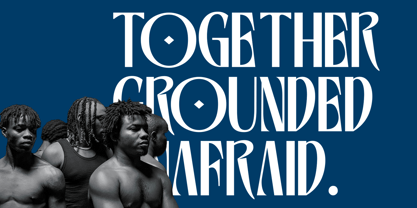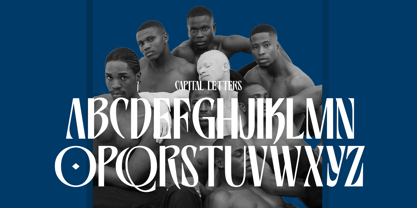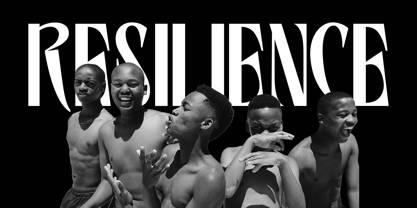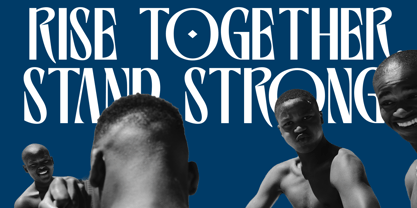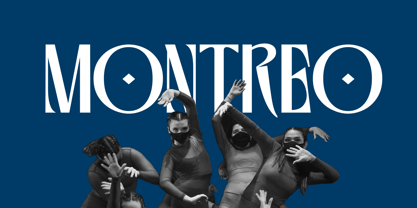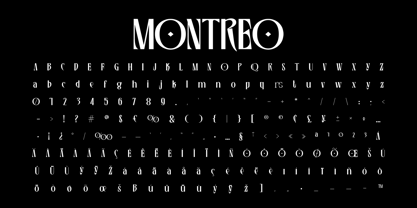
Montreo Display
by FoxType
The Montreo Display Font Family was designed by Evin Tony and published by FoxType. Montreo Display contains 1 styles. More about this family
Montreo – Bold Modern Display Font Montreo is a bold and powerful display typeface designed to make a statement. With its strong geometric forms, condensed proportions, and smooth curves, this font is perfect for creating eye-catching headlines, posters, branding, packaging, social media graphics, and more. Whether you’re working on fashion editorials, album covers, or modern advertising campaigns, Montreo brings a confident and stylish touch to your designs. Its versatility allows you to shrink, stretch, or squish the letters to fit your creative vision while still maintaining a striking presence. Features: Uppercase & lowercase letters Numbers & punctuation Multilingual support (including accented characters) Special symbols & currency signs Perfect for posters, branding, magazines, fashion projects, and digital media.
Designers: Evin Tony
Foundry: FoxType